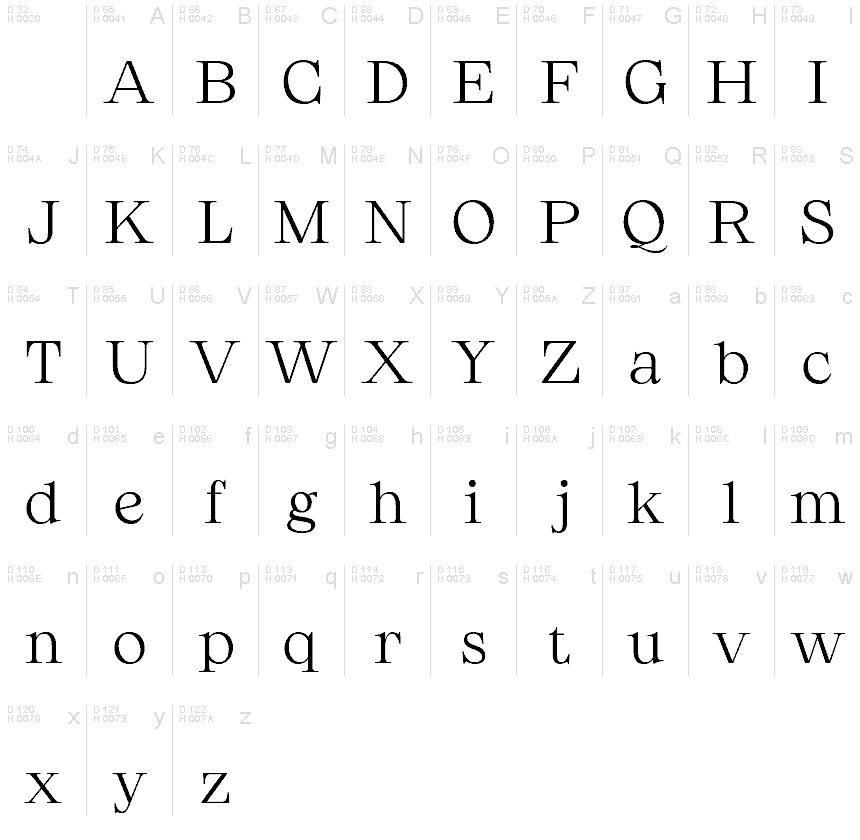
Renly Demo Regular
Renly font, created by Craft Supply Co, is a free serif font inspired by elegance and sophistication. It carries a weight of professionalism and style with every letter. This modern typeface is both eye-captivating and refined; it grabs the viewers attention but leaves them satisfied. A delightful enigmatic element can be found in its atmosphere.
A seamless using experience created with Renly when implemented in invitations, branding design, business cards and CVs/resumes. Both mobile apps and websites can hold an elite tone when presenting this typography from headlines to body text or general paragraphs(contents). Other utilization possibilities include logos, magazines, packaging or iconic posters.